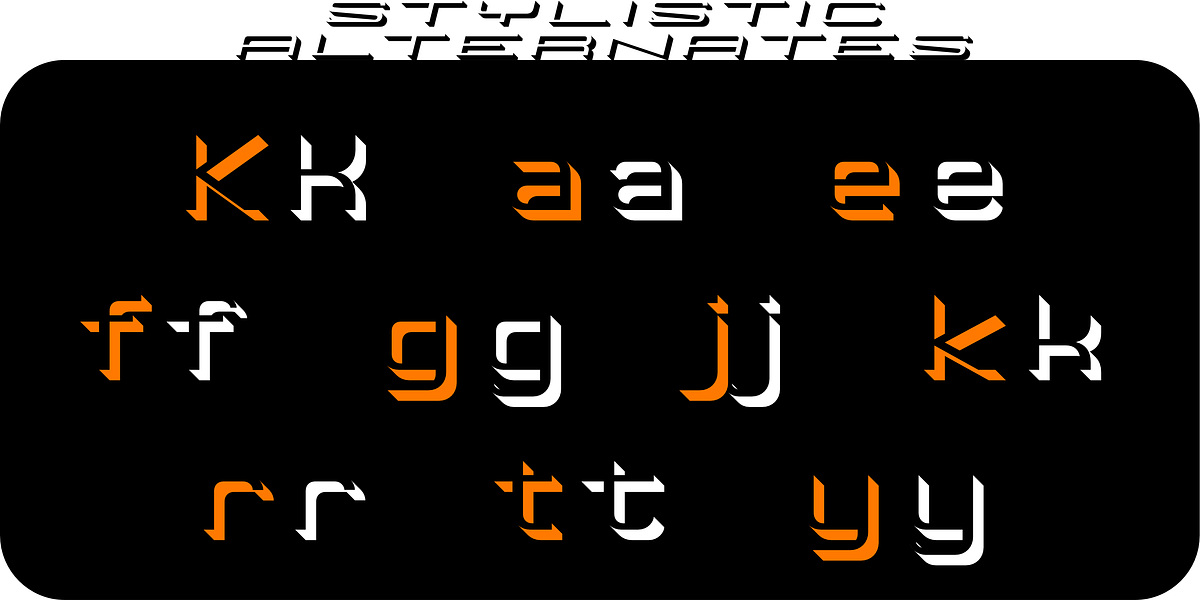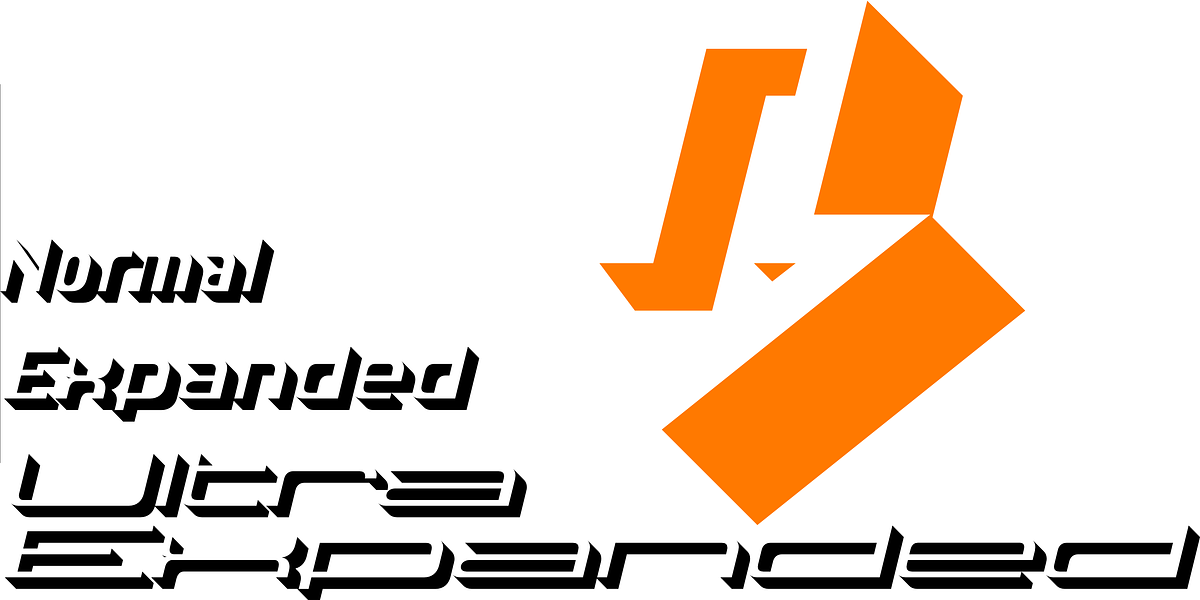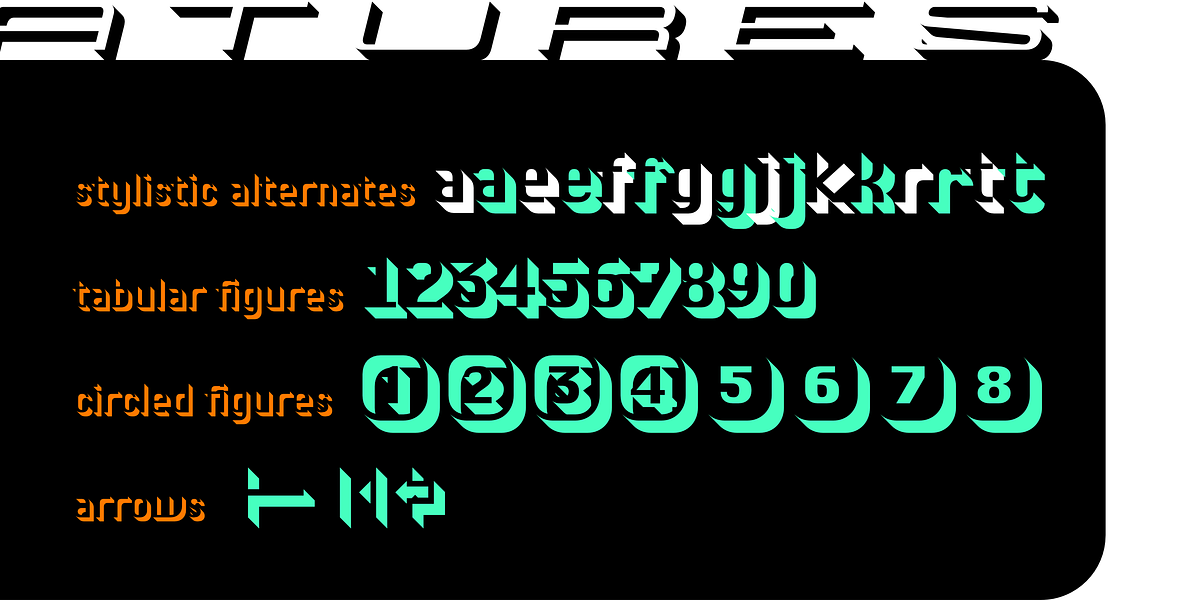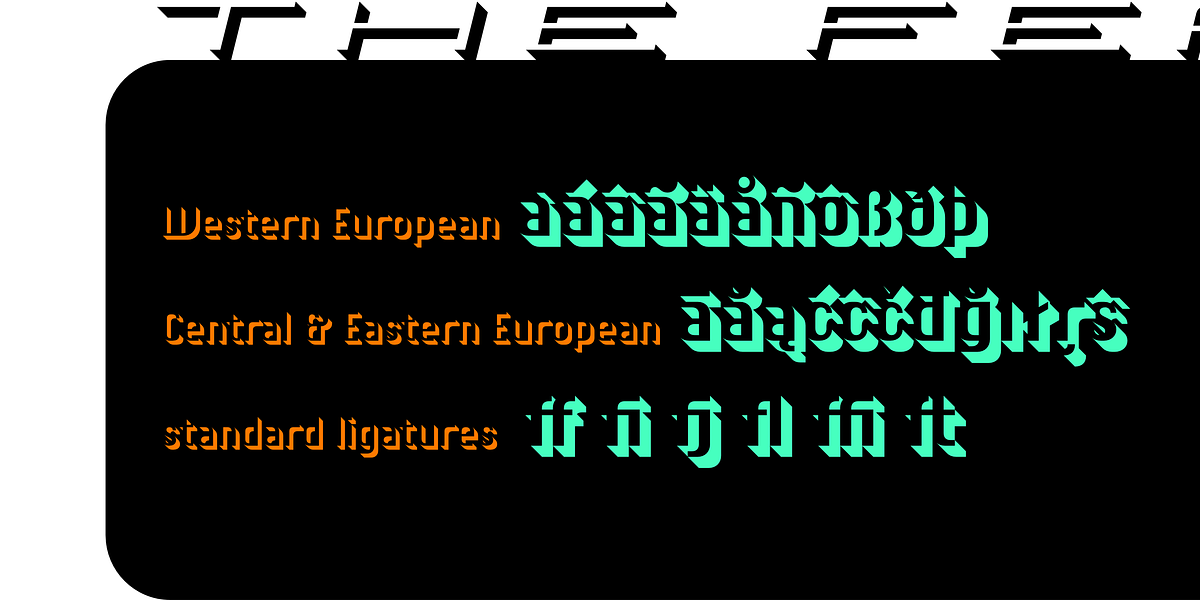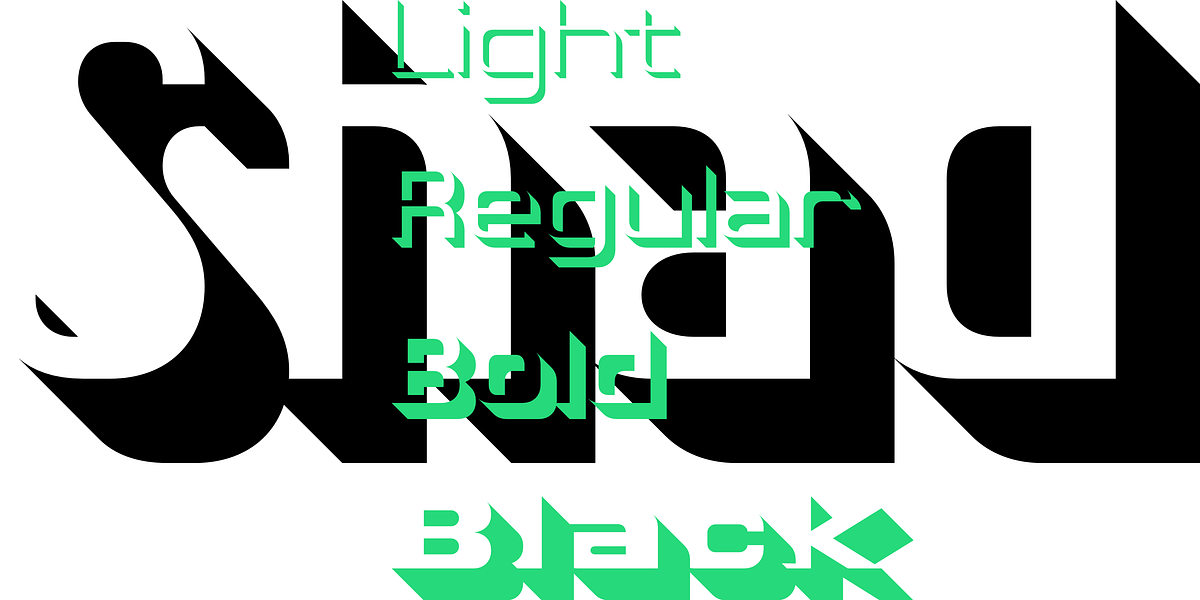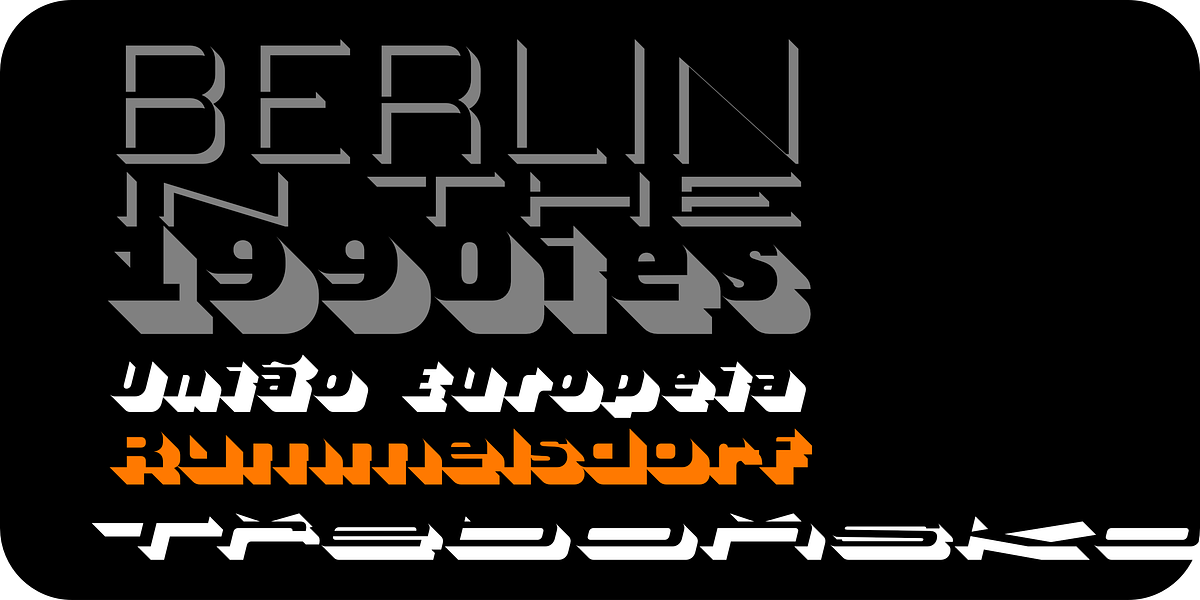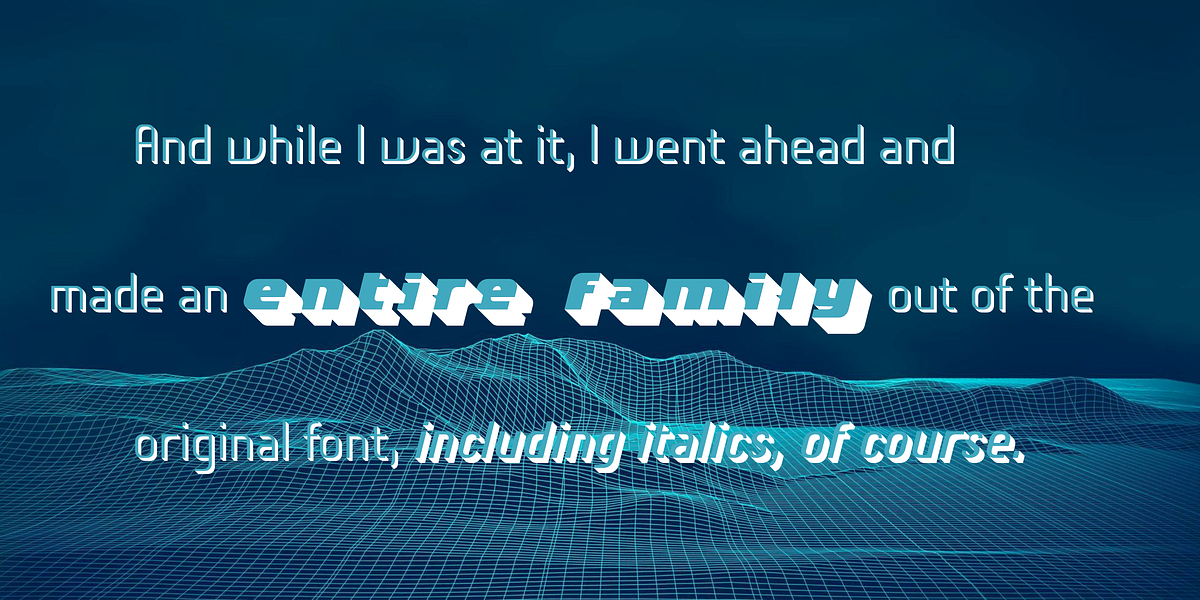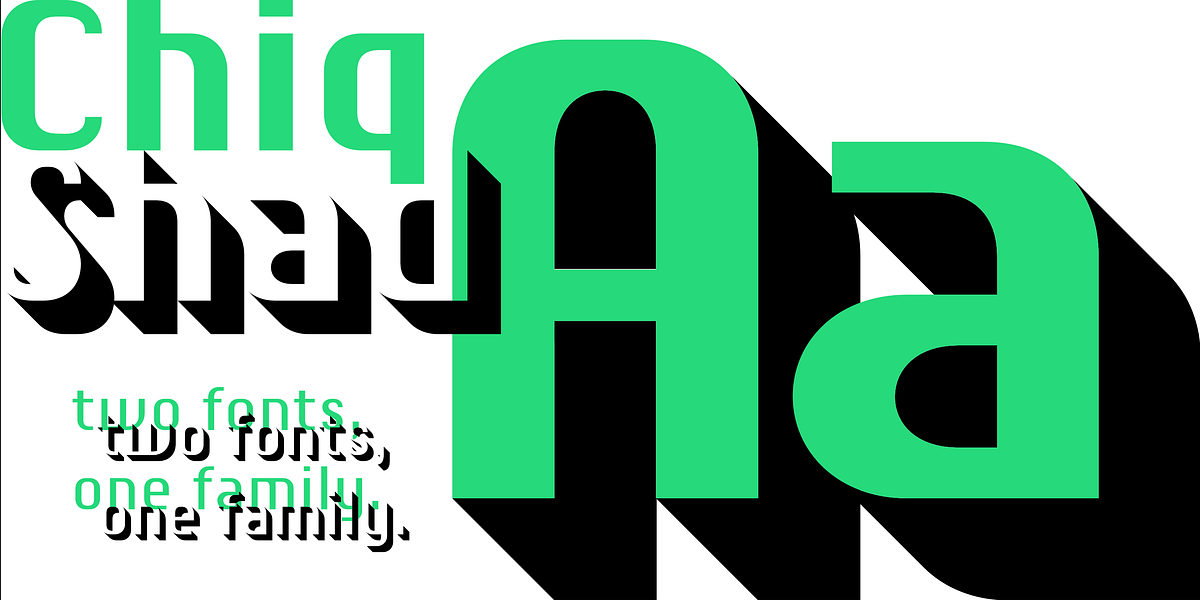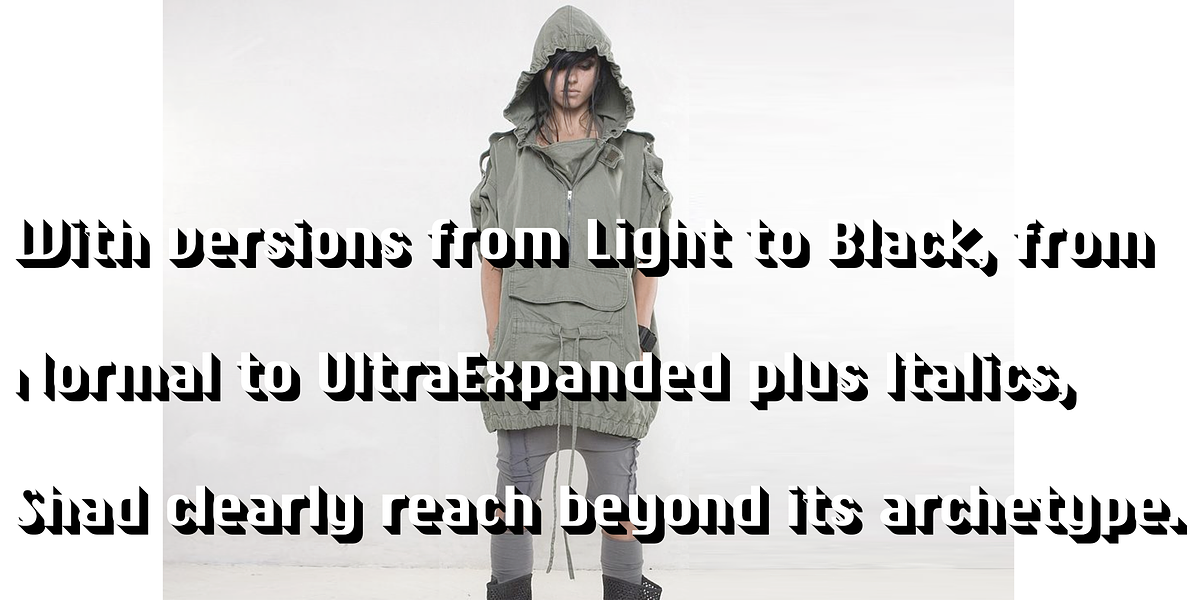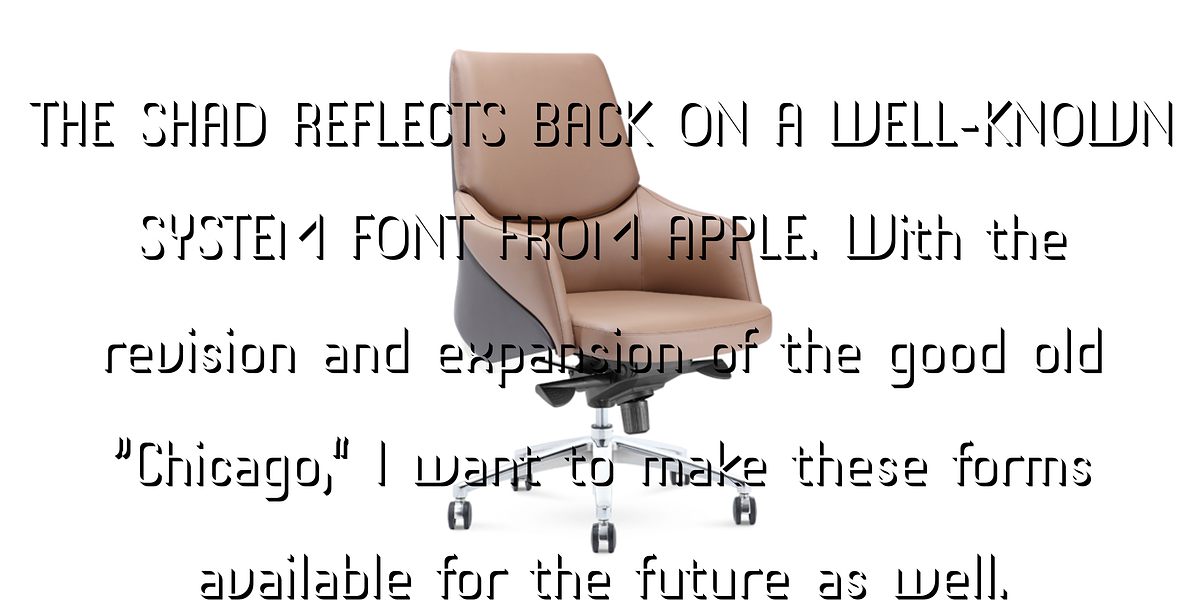
Shad
Shad is a geometric sans serif font characterized by its unique shadow effect. Each letter appears as a transparent outline with a progressively thicker shadow depending on the weight selected. The shadows are designed to mimic the appearance of depth and dimension, adding a sense of visual interest to typographic compositions. Shad is intended primarily for display purposes such as headlines, branding, and other instances where impactful typography is desired.